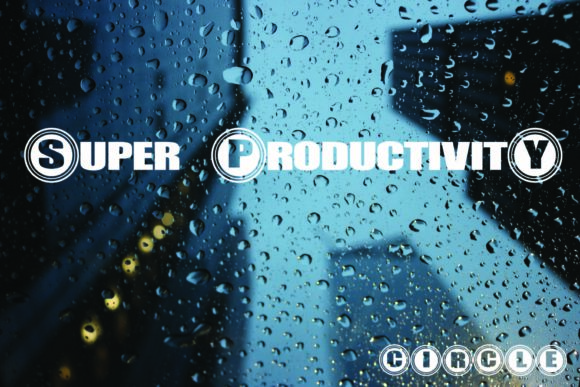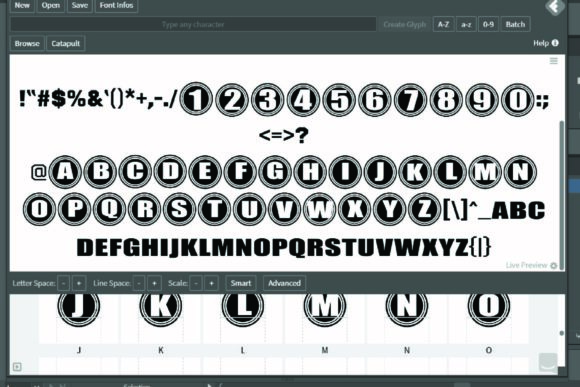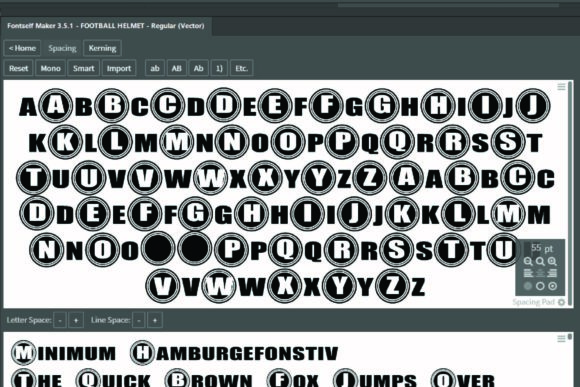
Introduction to Circle High Font Font
Fonts play a crucial role in design, and the Circle High Font font is a typeface that brings both character and versatility to any project. Whether you’re working on a branding project, a website, or a print design, the Circle High Font font offers a unique style that can elevate your work.
Circle High looks bold, yet sophisticated and features chunky and extended characters that will look particularly adept when used in logos, branding, packaging design, and much more.
This masterfully designed display font is a true must-have .
Key Features of Circle High Font Font
Why Choose Circle High Font Font?
The Circle High Font font is more than just a typeface – it’s a design tool that helps you communicate your message with style and clarity. Its unique character set and versatile design make it suitable for a wide range of applications, from elegant invitations to bold headlines.
With its carefully crafted letterforms and balanced proportions, the Circle High Font font ensures readability and visual appeal across all mediums.
What makes Circle High Font font special?
The Circle High Font font stands out with its unique design, exceptional readability, and versatility across various design applications.